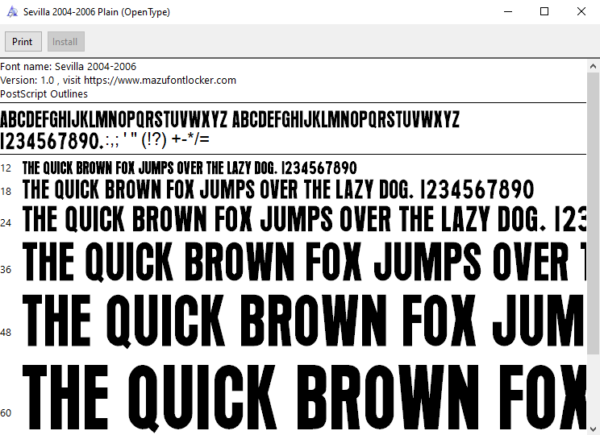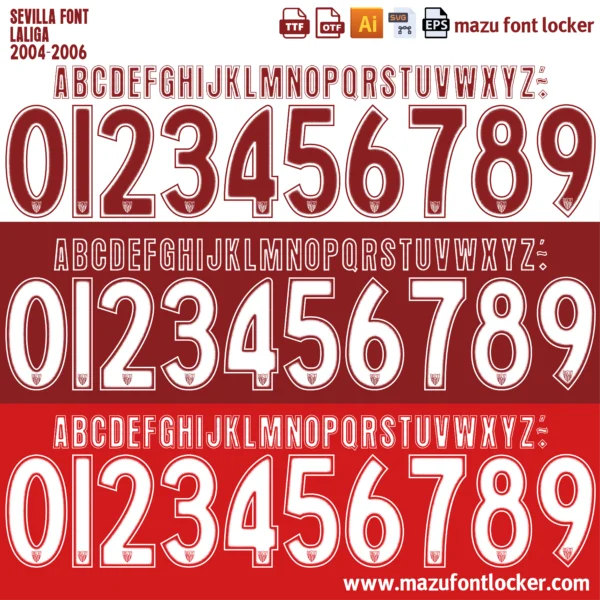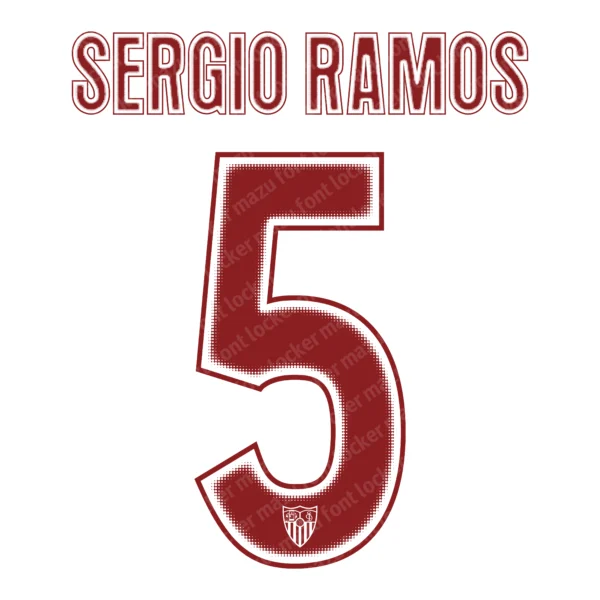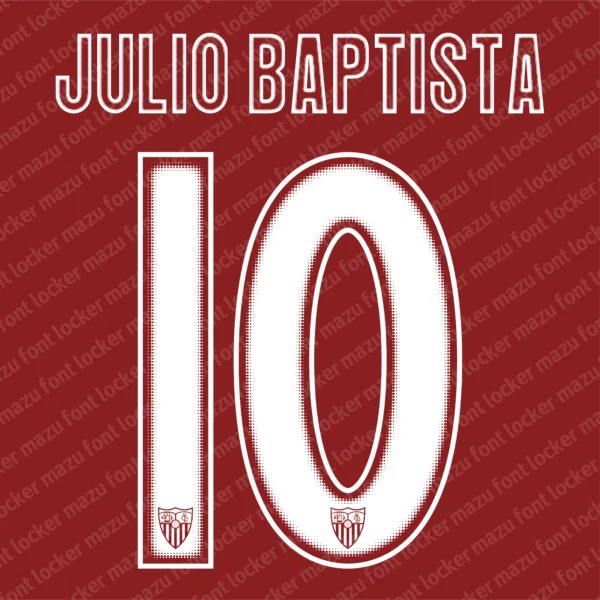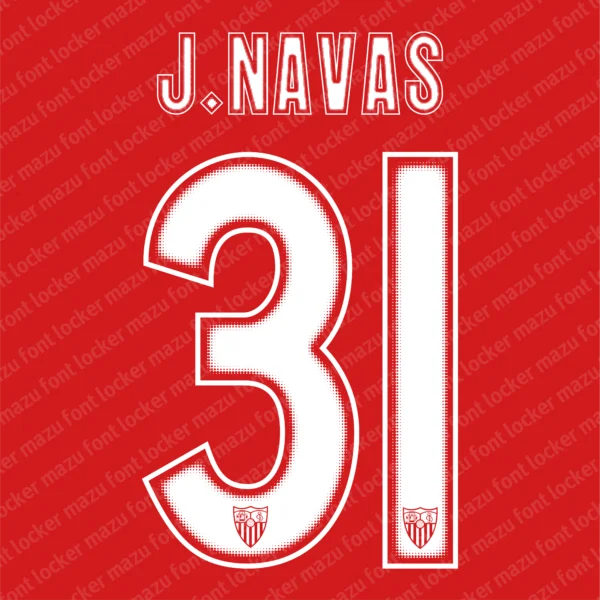
Sevilla 2004-2006 Font Vector – Legendary Rojiblancos Masterpiece
Download the Sevilla 2004-2006 Font Vector (AI, PDF, OTF, TTF) and unleash the bold, iconic, and fiery match typography that defined Sevilla’s golden era in the 2004-2006 seasons. This font channels the commanding and passionate lettering that embodies the legendary Rojiblanco spirit, delivering unmatched authenticity, raw intensity, and Ramón Sánchez-Pizjuán-level passion for premium jersey mockups and football designs.
Sevilla 2004-2006 Font Vector – Authentic Rojiblancos Typeface
The Sevilla 2004-2006 Font Vector is a premium typeface that accurately recreates the official match lettering worn by Sevilla FC during their historic 2004-2006 period. This high-quality vector font kit captures the bold, elegant, and distinctive typography that represents the club’s most successful era, highlighted by two consecutive UEFA Cup victories.
Designed for professional designers and passionate Sevilla fans, the Sevilla 2004-2006 Font Vector delivers perfect authenticity for creating realistic jersey mockups, fan merchandise, matchday posters, social media graphics, and much more. It blends beautifully with the club’s iconic red and white kits from that golden period.
Why Choose Sevilla 2004-2006 Font Vector
This font stands out because of its sharp vector details and strong identity. Every letter and number is crafted to match the exact style used on the players’ shirts during the 2004-2006 seasons. Whether you are making realistic kit templates or nostalgic football content, the Sevilla 2004-2006 Font Vector gives your designs that authentic Rojiblancos look.
The letterforms in the Sevilla 2004-2006 Font Vector are tall, bold, and highly readable. The strokes have a strong yet refined weight with clean edges that look powerful on the back of jerseys while maintaining excellent clarity and Spanish elegance.
• Full uppercase A–Z and numbers 0–9 in authentic Sevilla 2004-2006 style
• Special Sevilla FC crest glyph for accurate shirt number detailing
• Create highly realistic Sevilla 2004-2006 home and away jersey mockups with accurate lettering
• Design stunning season posters, UEFA Cup graphics, and squad announcements
• Produce custom Rojiblancos merchandise with a classic mid-2000s football aesthetic
Sevilla in the 2004-2006 Era
Sevilla FC, famously known as the Rojiblancos, enjoyed their greatest period of success between 2004 and 2006. Under coach Juande Ramos, the team won back-to-back UEFA Cups in 2006 and 2007, defeating teams like Middlesbrough in a memorable final. Key players included José Antonio Reyes, Frédéric Kanouté, Jesús Navas, and Dani Alves.